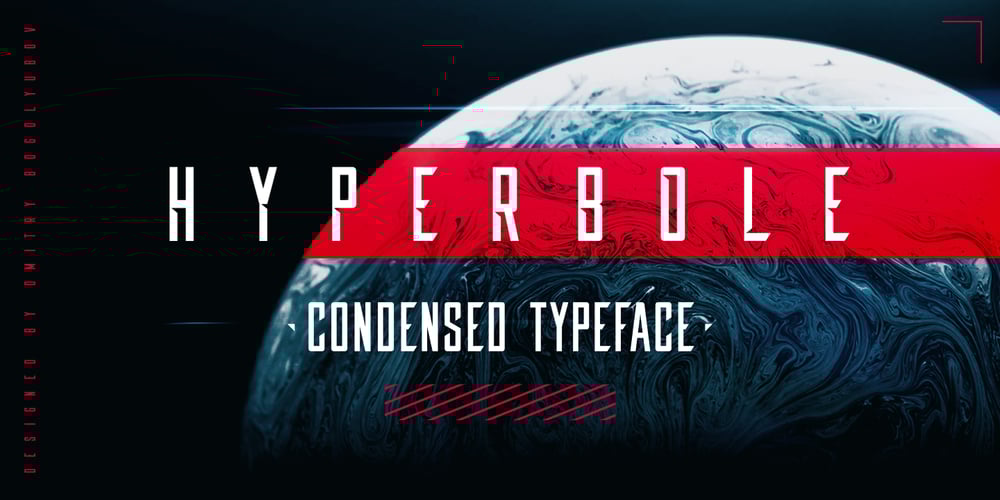
Hyperbole Font Family was designed by Dmitry Bogolyubov and published by Dmitry Bogolyubov. Hyperbole contains 1 styles and family package options. Hyperbole is a condensed futuristic display typeface, suitable for writing headlines and drawing posters. This font is strict, cosmic, bewitching. It contains alternative styles for latin letters and extended latin letters.